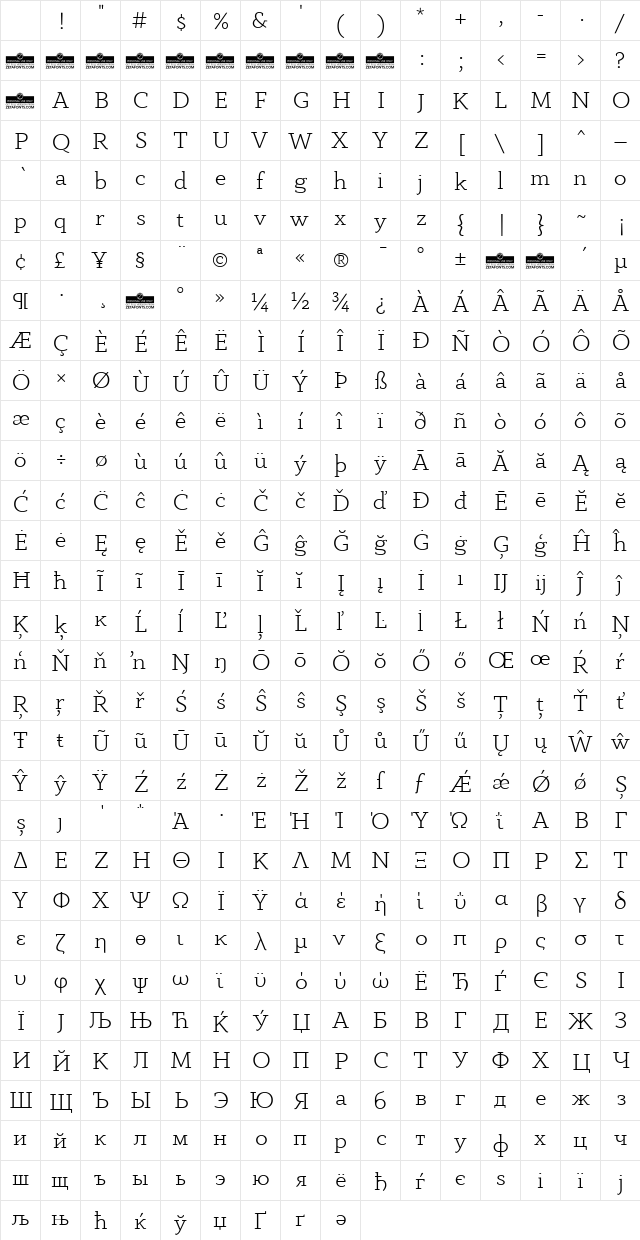
Anaphora Trial is a composed and adaptable typeface that performs quietly and consistently across a wide range of design contexts. Its slender proportions lend an understated elegance to any composition.